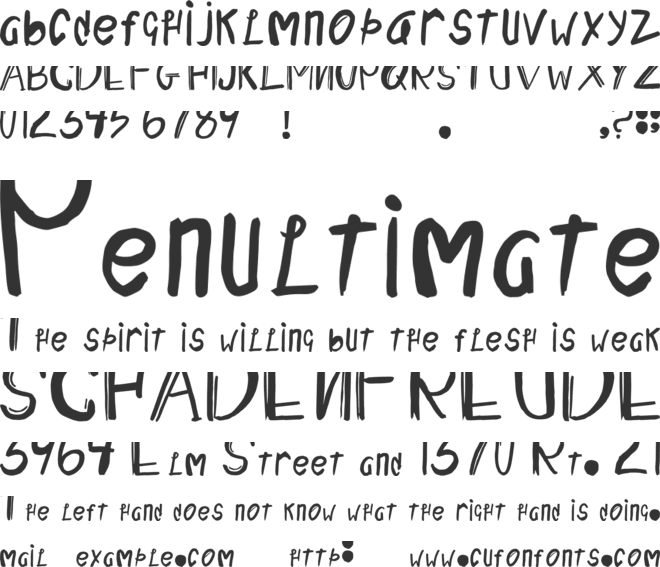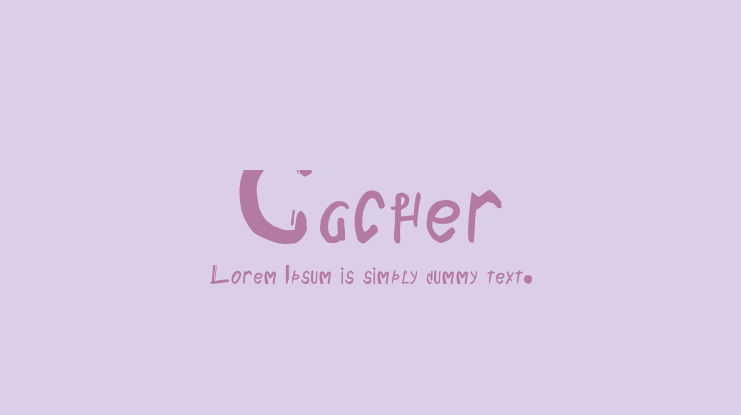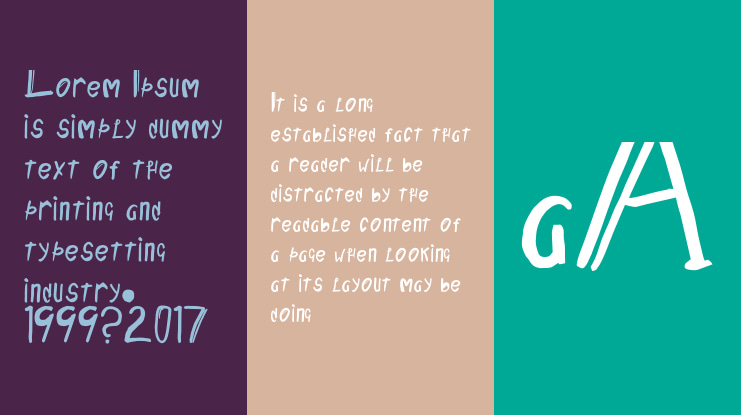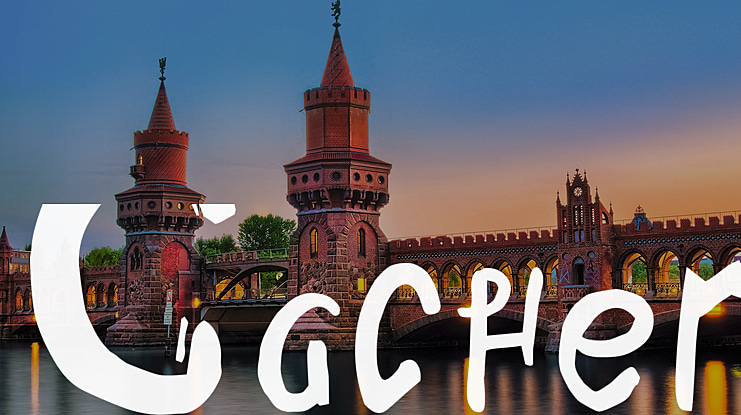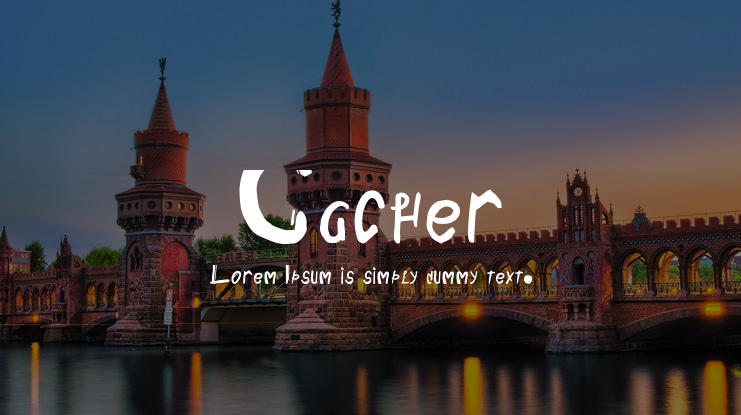
Cacher Font
I didn't think of any theme or particular 'occasion' of what this font should be used for when I made this. But it turned out to be suitable for diary/notes/or writing kind of thing. But I am sorry to say that some characters are not available yet. Hehe. You may use this font if you'd like to. Thank you in advance!